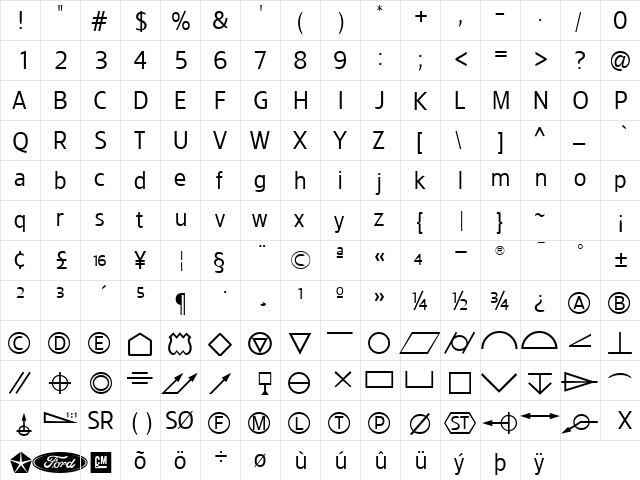
PPAPForever-Normal Normal Font Preview
PPAPForever-Normal Normal
Design Context for PPAPForever-Normal Typeface
PPAPForever-Normal is a composed and adaptable typeface that performs quietly and consistently across a wide range of design contexts.